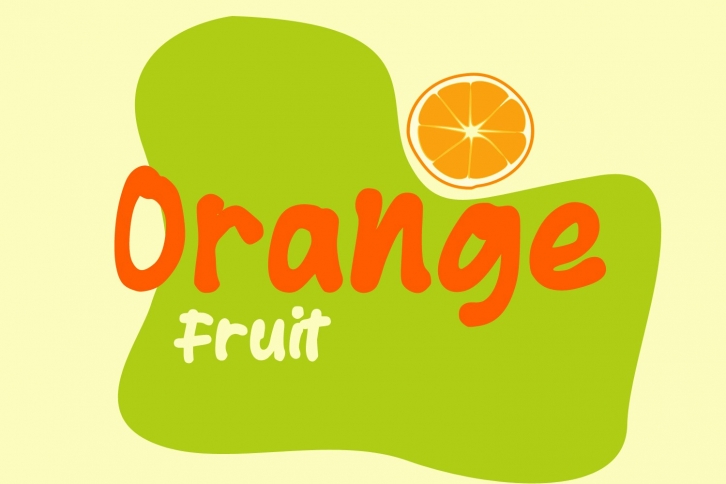
Orange Fruit is a trendy and unique font with an authentic style. It was designed by Greentype and it's a great choice for creative people who need such a font. It was released on February 13, 2021 and the file size is 13.3 MB. Orange Fruit will add an organic vibe to any design idea!